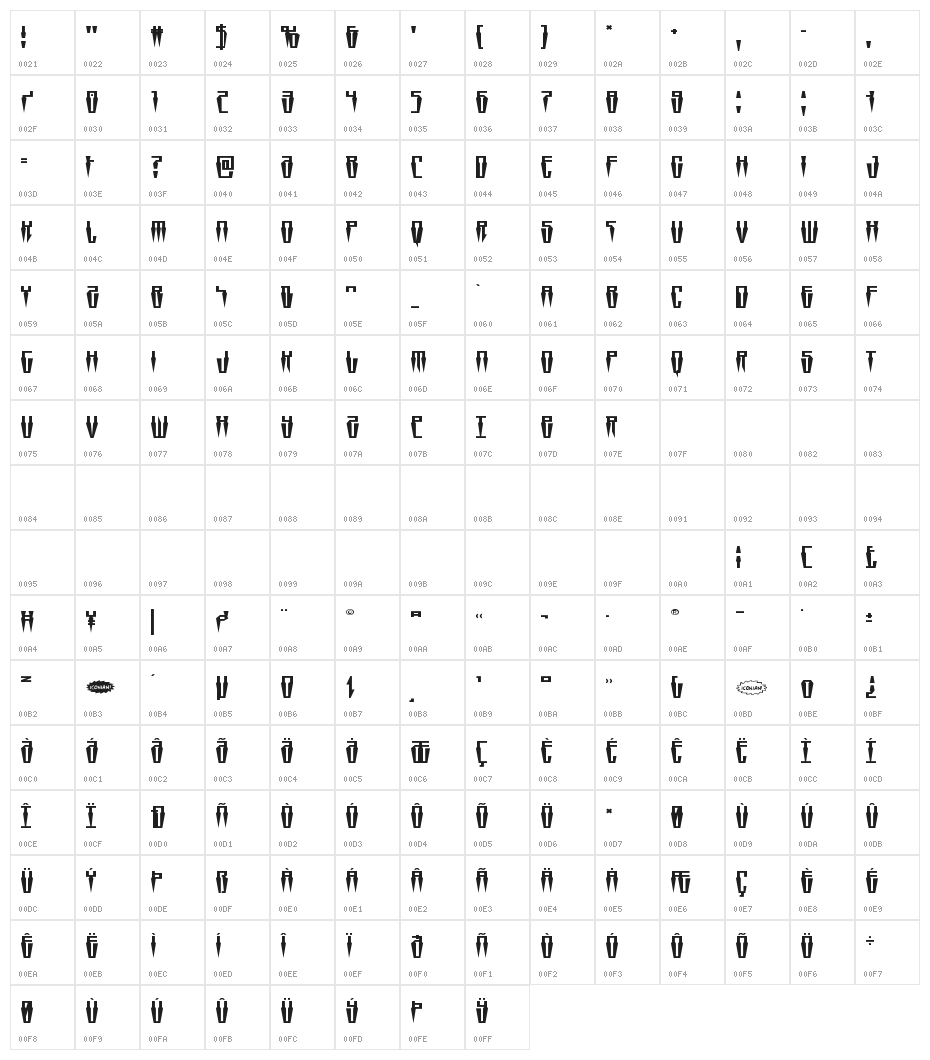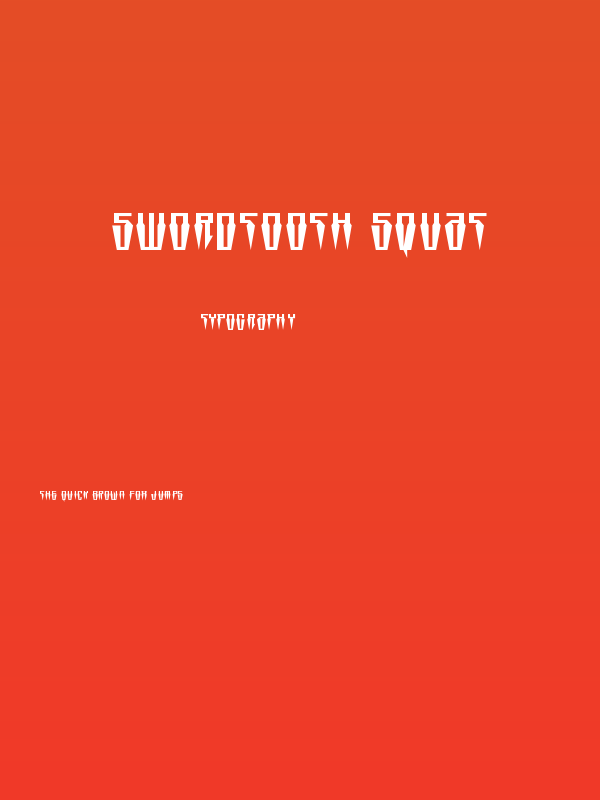
Swordtooth Squat Font
Swordtooth Squat Description
This font features a bold and aggressive design with sharp, angular edges reminiscent of blades or teeth. The characters are highly stylized, with a geometric structure that gives them a modern and edgy appearance. The uppercase and lowercase letters maintain a consistent style, emphasizing vertical lines and pointed serifs that create a sense of movement and intensity. The numerals and special characters follow the same design principles, ensuring uniformity across the entire typeface. This font is ideal for projects that require a strong visual impact and a sense of dynamism.
| Overall Style | Modern, Edgy |
| Proposed Projects | Ideal for video game titles, movie posters, branding for extreme sports, or any project needing a bold, dynamic typeface. |